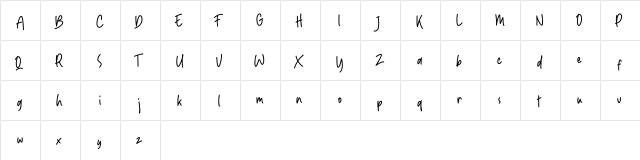
Aurabelle Persona lUse Regular
Design Context for Aurabelle Persona lUse Typeface
Aurabelle Persona lUse is a composed and adaptable typeface that performs quietly and consistently across a wide range of design contexts.